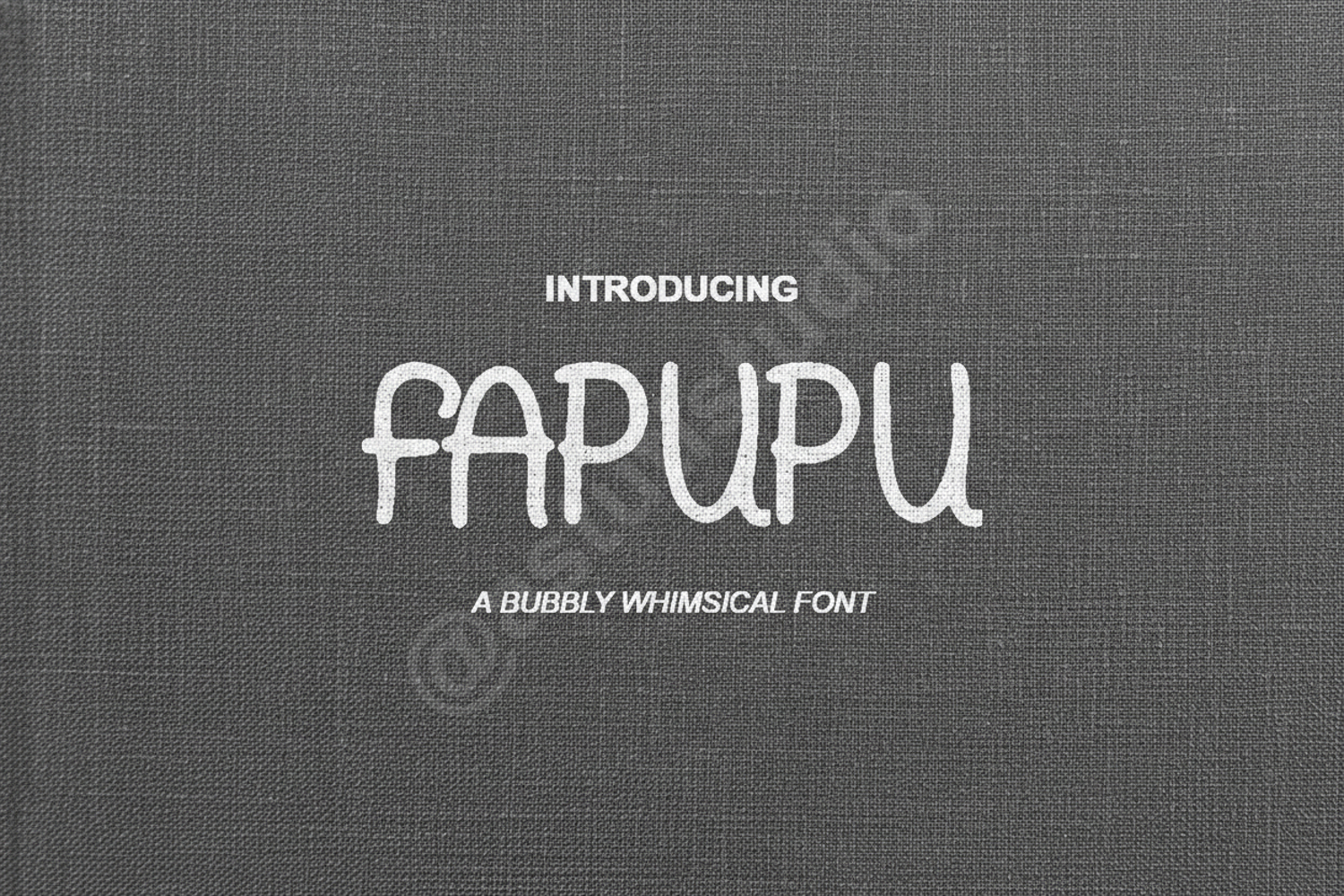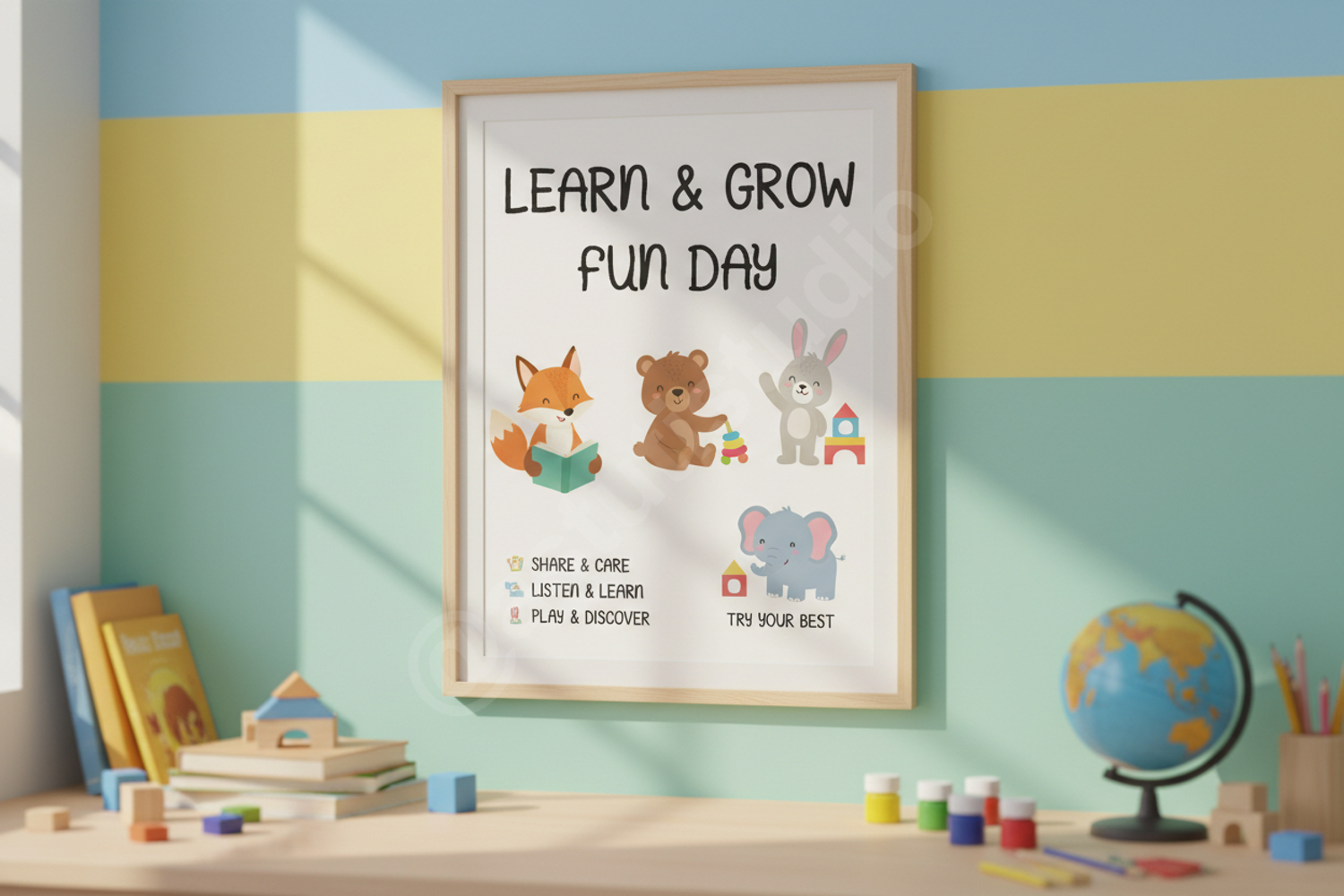
Fapupu - Modern & Playful Display Font
Fapupu
Fapupu is a premium display font designed to bring a touch of modern sophistication and playful energy to your creative projects. Crafted with precision, this font offers a unique balance of clean lines and characterful curves, making it a versatile choice for designers seeking high-quality typography that stands out.
- Full character set including uppercase, lowercase, numbers, and punctuation
- Multilingual support for global accessibility
- Branding and Identity: Create memorable logos and professional brand marks.
- Social Media: Design eye-catching Instagram posts, stories, and Pinterest graphics.
- Packaging: Perfect for modern product labels and high-end box designs.
- Wedding Stationery: Add a contemporary flair to invitations, save-the-dates, and menus.
- Editorial Design: Ideal for magazine headers, stylish layouts, and book covers.